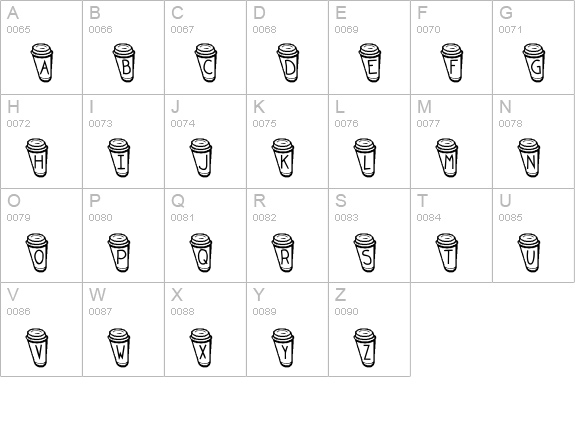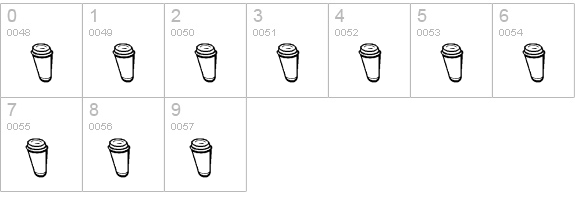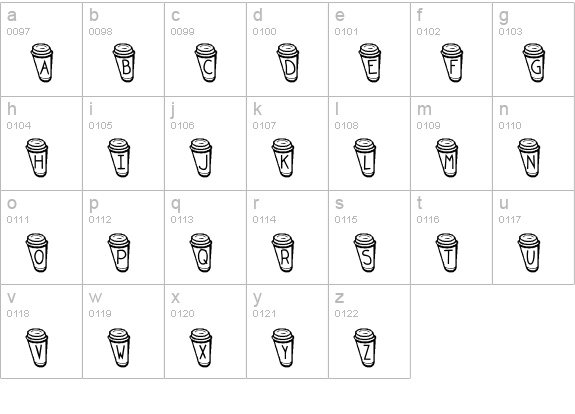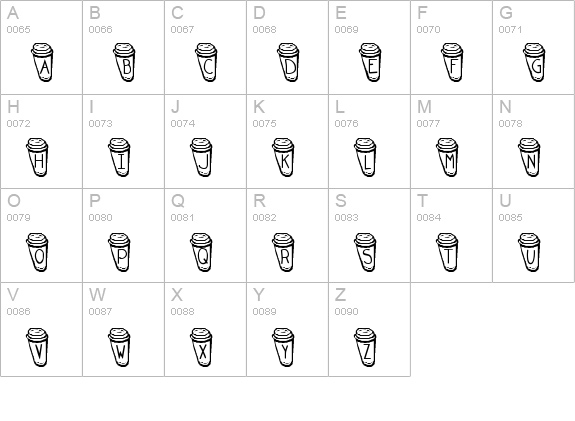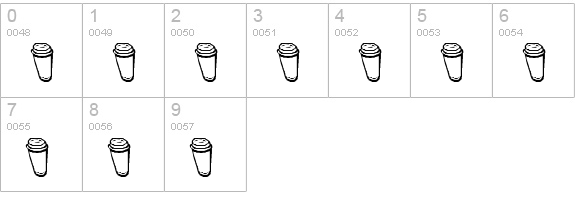
KR Coffee To Go Font Details
Introducing KR Coffee To Go font, a delightful and playful typeface perfect for adding a touch of whimsy to your designs. This unique font features charming coffee cup illustrations integrated into each letter, creating a fun and eye-catching look. Whether you're working on a cafe menu, coffee shop logo, or any project that needs a caffeinated boost, KR Coffee To Go font is sure to stand out. What's even better is that this font is available for free download at FontsMarket.com. Yes, you heard that right - you can add this charming font to your collection without spending a penny. So why wait? Elevate your designs with the free-spirited and dynamic KR Coffee To Go font today!